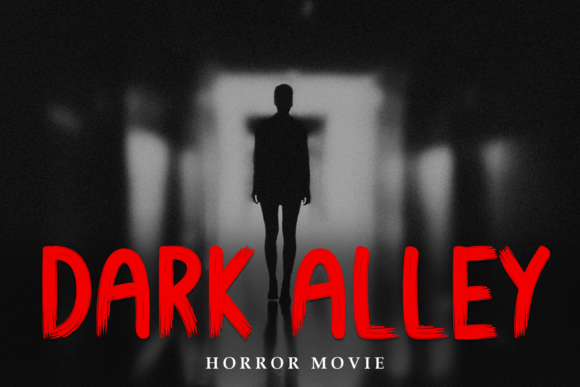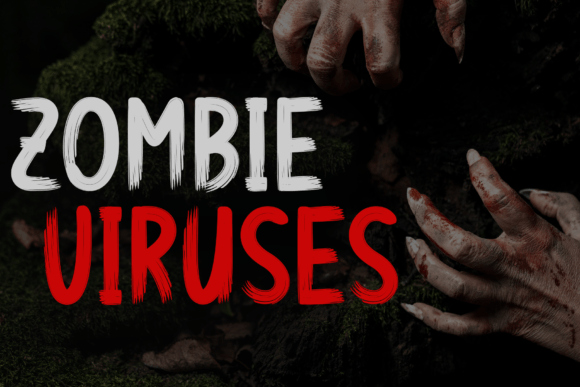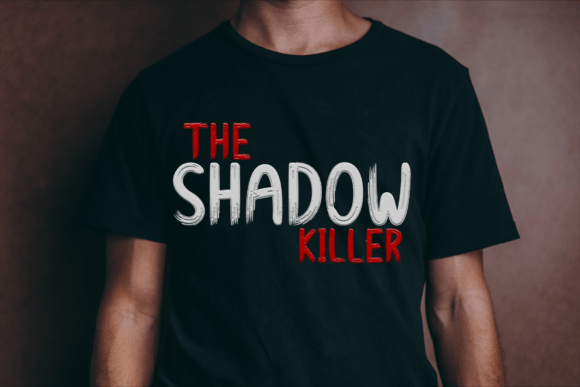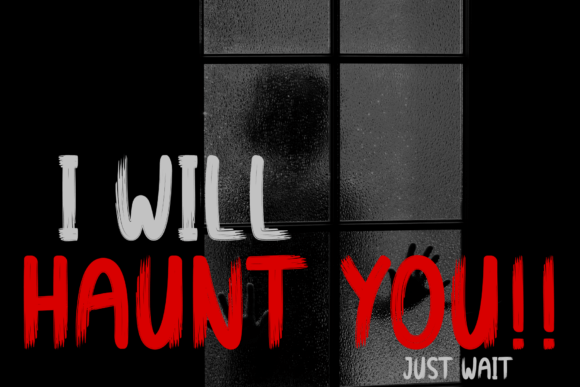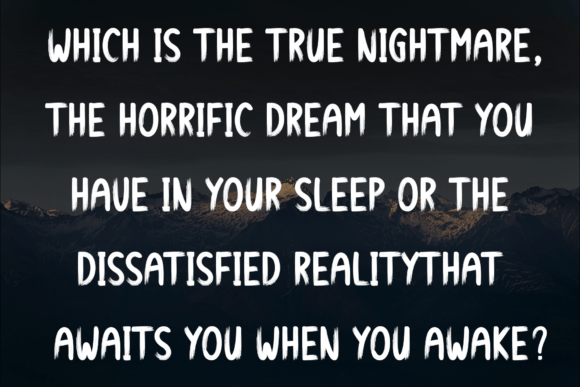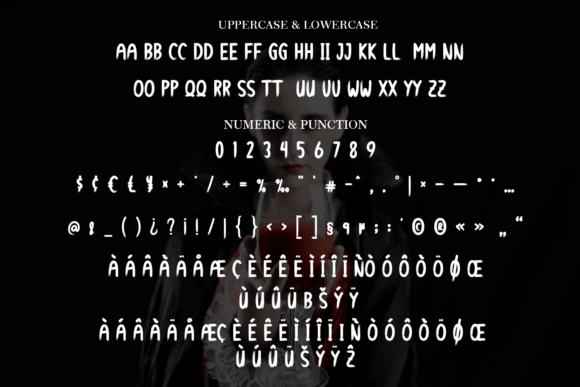
The Spooky-Chic Allure of Dracula Font: A Designer’s Delight
I’ll never forget the time I was working on a Halloween-themed wedding invitation project, and my client asked me to create a custom design that would make their guests scream with excitement (in a good way, of course!). As I scoured the internet for the perfect font, I stumbled upon the Dracula Font – a bold and fun display font that instantly captured the spooky-chic essence of the occasion.
With its playful, yet eerie vibe, Dracula Font quickly became my go-to choice for adding a touch of whimsy to various design projects. In this article, I’ll share my honest review of this fantastic font, provide a practical guide on how to use it, and explore similar fonts that you might enjoy.
- ✅ Unique and eye-catching design: Dracula Font is perfect for making a statement with your designs, whether it’s a wedding invitation, a Halloween-themed party invite, or a bold title for a blog post.
- ✅ Highly versatile: This font can be used for a wide range of projects, from formal events to casual gatherings, and even for adding a touch of personality to your everyday designs.
- ✅ Easy to read: Despite its bold and playful design, Dracula Font remains surprisingly legible, making it perfect for use in both digital and print designs.
- ⚠️ Limited use in body text: While Dracula Font is amazing for titles and headings, it may not be the best choice for body text due to its bold and playful nature.
- ⚠️ May not be suitable for formal designs: Depending on the context, Dracula Font might be too bold or playful for very formal designs, such as business proposals or official documents.
The Backstory Behind Dracula Font
Legend has it that Dracula Font was inspired by the iconic vampire character from Bram Stoker’s novel. The font’s designer aimed to capture the essence of the character’s mysterious and playful nature, resulting in a font that’s both bold and fun.
Q: What type of projects is Dracula Font best suited for?
A: Dracula Font is perfect for designs that require a bold and playful touch, such as wedding invitations, Halloween-themed party invites, or social media graphics.
Q: Is Dracula Font available in different weights or styles?
A: Currently, Dracula Font is available in a single weight. However, you can experiment with different font sizes, colors, and effects to achieve the desired look.